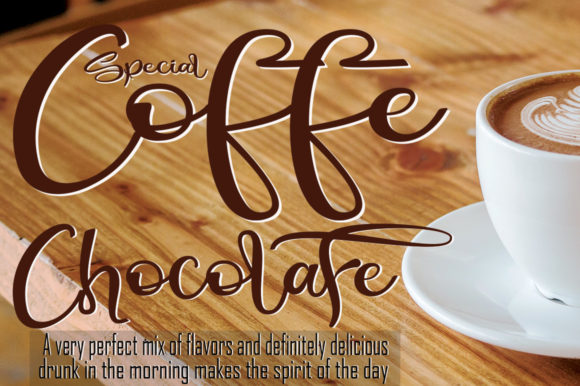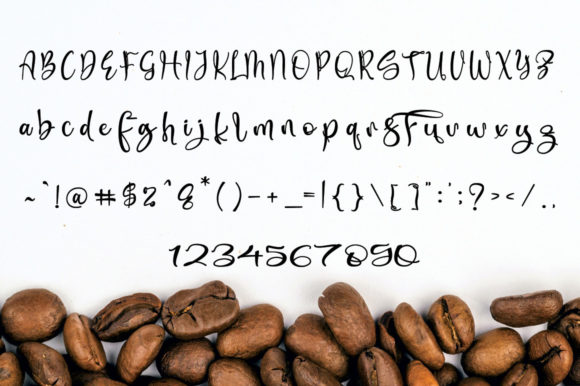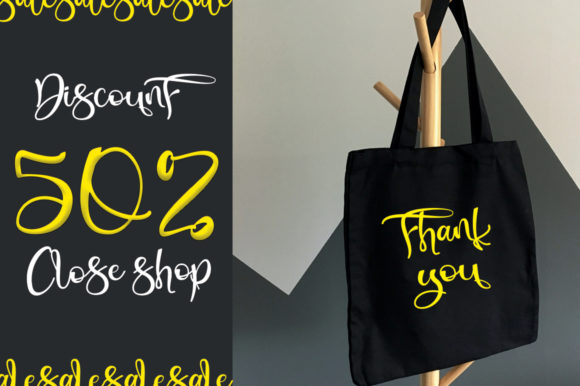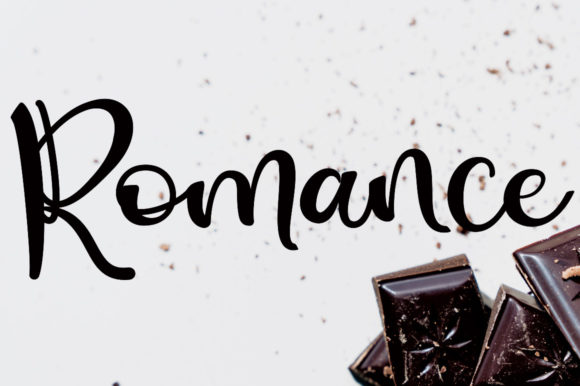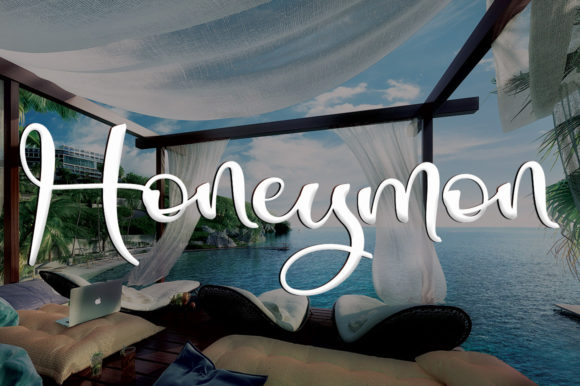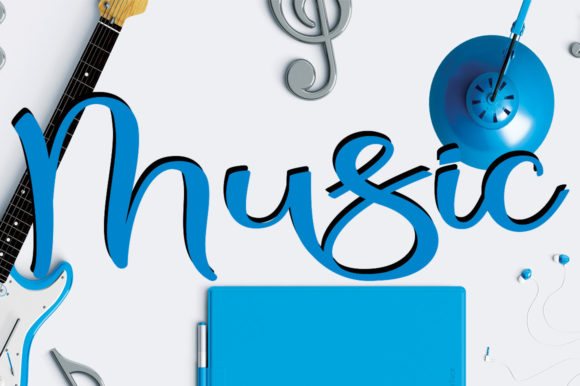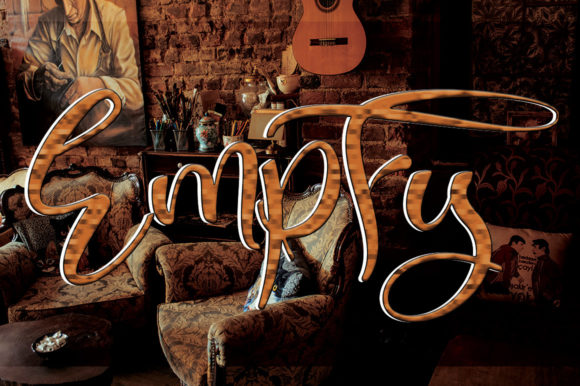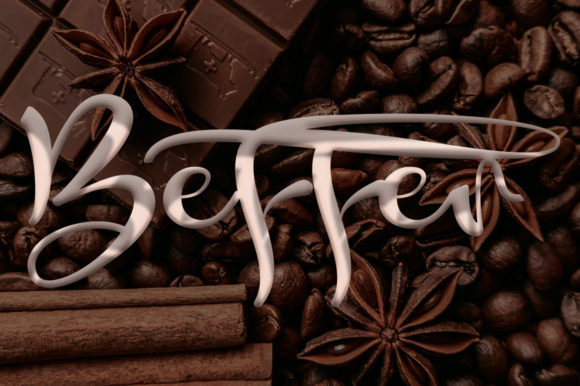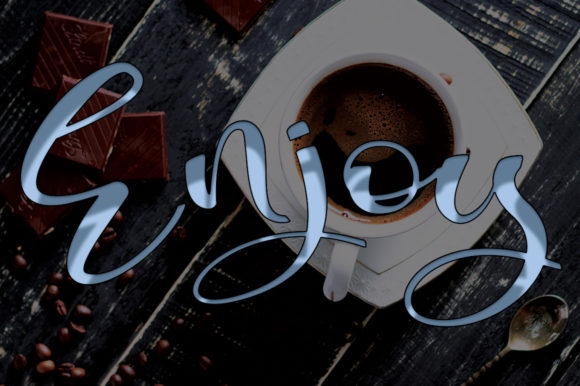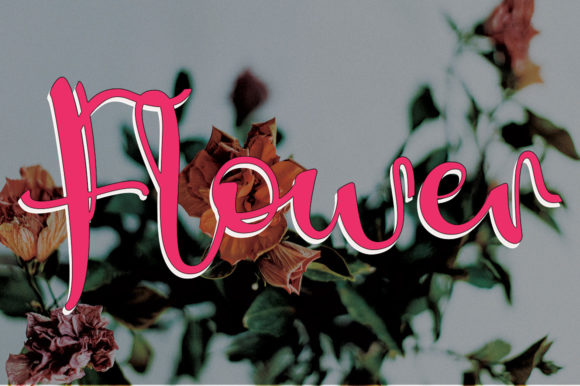
Coffe Font
About Coffe Font
Coffe is an exquisite script font made for product packaging, invitation cards, t-shirt screen printing, shop names, event posters and all aspects that require high-quality vibes. No matter the topic, this font will be an incredible asset to your fonts’ library, as it has the potential to elevate any creation!